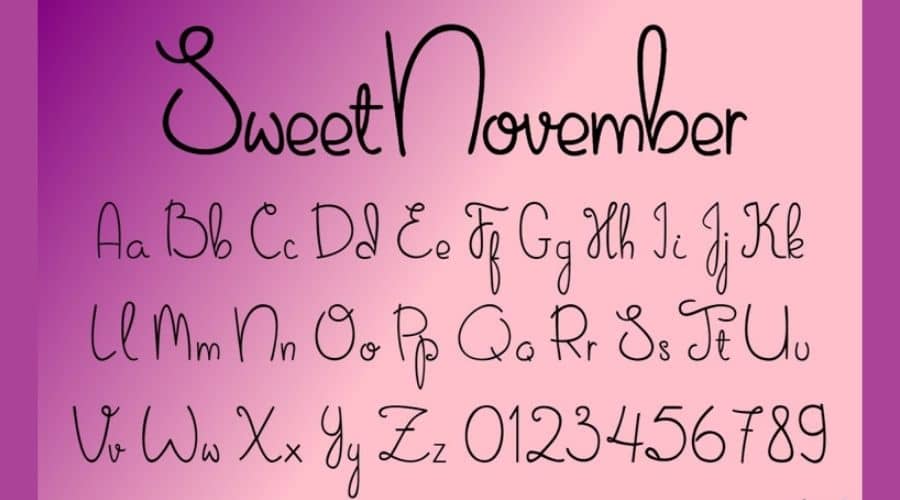
Sweet November Font Free
I’m pleased to present to you an excellent handwriting font. Sweet November Font’s Introduction! Haidi Shabrina created and shared Sweet November. Sweet November is a modern script typeface with meticulously made letters to make your content look attractive. The subfamily is Regular. All uppercase and lowercase letters and a few special characters are included in the free version. The typeface is available in two different formats: OTF and TTF. You must first extract the fonts from the ZIP or RAR file before installing them. Windows 10/8/7 (64-bit) By right-clicking on the Font, you may install it. OS X (Macintosh Operating System) is a computer operating system developed by Apple. To install the Font, double-click it. From the drop-down option, choose “Install font.” The Font is compatible with Windows, Apple/Mac, Linux, Cricut, Silhouette, and other cutting machines. The lovely typeface can easily be turned into a web font. A large number of designers is now using this amazing typeface.
This font’s modern script style makes it ideal for a variety of projects, including quotes, blog headers, posters, weddings, branding, logos, fashion, clothes, letters, invitations, stationery, and more. Sweet November is the perfect font for all your fun designs. The font Sweet November is also perfect for branding projects, Homeware Designs, Product packaging – or simply as a stylish text overlay to any background image.